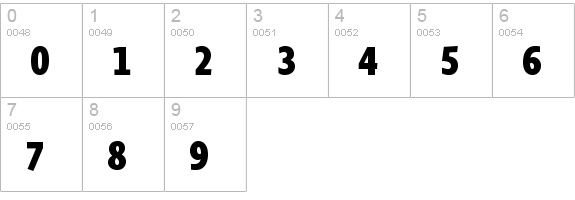
Novel SansCond Pro ExtraBold Font Details
Novel SansCond Pro ExtraBold is an extra-heavy, attention-grabbing variant in the Novel typeface family \xE2\x80\x94 well suited to high-impact headlines, posters, and bold branding.
Novel SansCond Pro ExtraBold is a striking and powerful font that commands attention with its bold and authoritative presence. With its clean lines and modern aesthetic, this typeface is perfect for making a bold statement in any design project. Whether used for headlines, logos, or branding materials, Novel SansCond Pro ExtraBold exudes confidence and sophistication. The extra bold weight of this font adds a sense of strength and impact, making it ideal for emphasizing key points and capturing the viewer's attention. Its versatility allows it to be used across a wide range of applications, from print materials to digital designs. And the best part? Novel SansCond Pro ExtraBold is available for free download at FontsMarket.com, making it accessible to designers and creatives looking to add a touch of bold elegance to their projects without breaking the bank. Don't miss out on this opportunity to elevate your designs with the timeless appeal of Novel SansCond Pro ExtraBold.